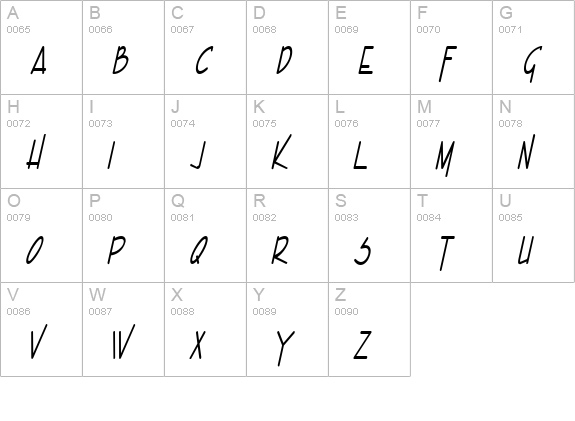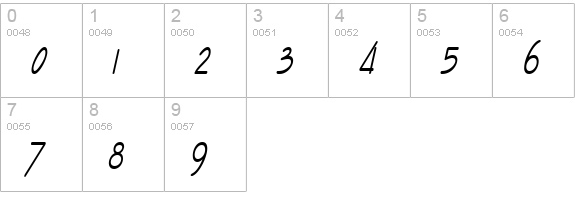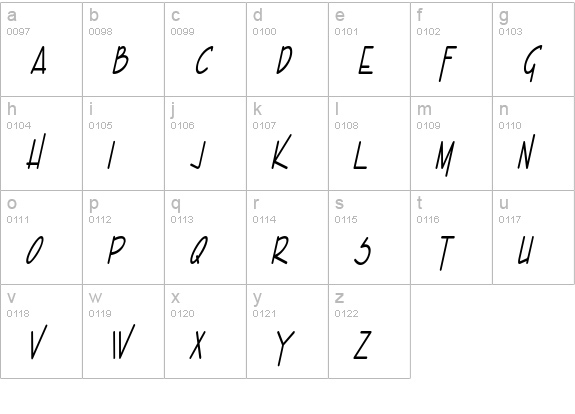
Enview Light BoldItalic is a refined, elegant variant in the Enview typeface family \xE2\x80\x94 well suited to elegant body text, refined sub-headings, and luxury branding.
Enview Light BoldItalic font is a stylish and modern typeface that exudes elegance and sophistication. Its sleek design and bold italic styling make it perfect for adding a touch of class to any project or design. The clean lines and subtle curves of this font give it a professional and polished look that is sure to make a statement. What makes Enview Light BoldItalic font even more appealing is that it is available for free download at FontsMarket.com. This means that you can easily access this beautiful font and use it in your projects without any cost. Whether you are working on a website, a logo, a poster, or any other design, Enview Light BoldItalic font is a versatile choice that will elevate your work to the next level. Don't miss out on the opportunity to enhance your designs with the sophisticated charm of Enview Light BoldItalic font. Download it for free today at FontsMarket.com and start creating stunning visuals that captivate and impress.